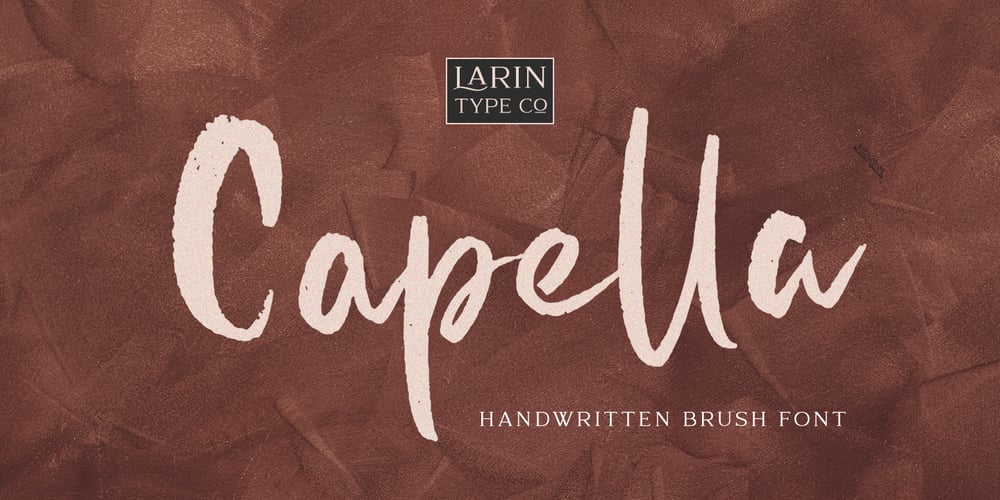
Capella Font Family was designed by Pavel Larin and published by Larin Type Co. Capella contains 1 styles and family package options. Capella is a beautiful and charismatic hand drawn font, it will emit your individuality in any project. It will draw attention to itself and highlight the main thing in your design. Ligatures and alternates will help create an impression of integrity. You can also use Capella to create a logo or templates, invitations, blog, branding, marketing, book covers, magazines, advertising, stationery, logo design and much more. This font is easy to use and has OpenType features.